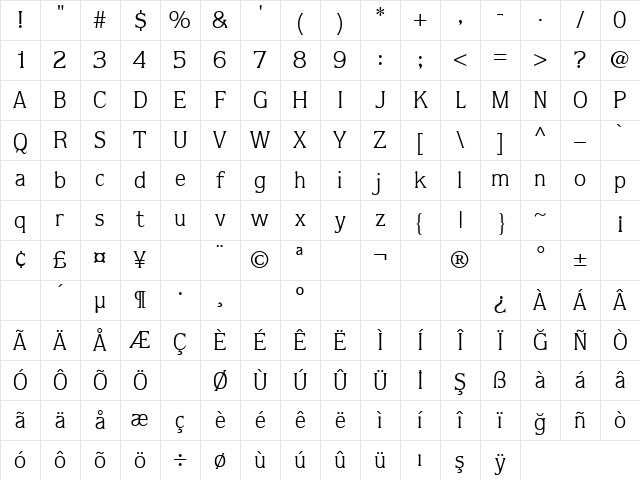
TR DoorsBook Regular
Design Context for TR DoorsBook
TR DoorsBook is a composed and adaptable typeface that performs quietly and consistently across a wide range of design contexts.
Pro Tip: Use TR DoorsBook in both headline and body roles to test its range before committing to a single application.